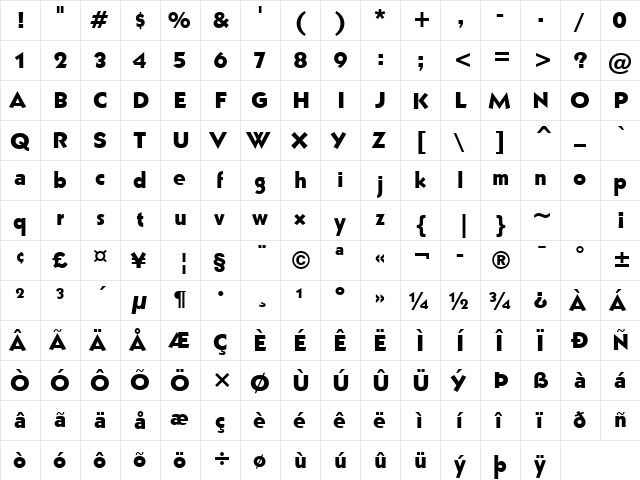
Grizzly BT Regular
Design Context for Grizzly BT Typeface
Grizzly BT is a composed and adaptable typeface that performs quietly and consistently across a wide range of design contexts.